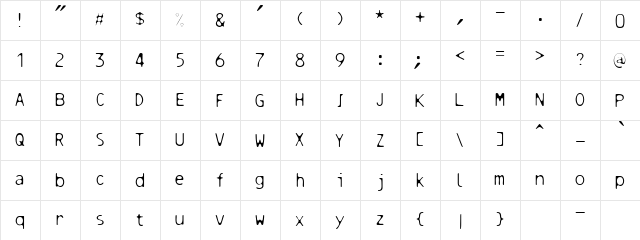
ResbalosoSlippingA Regular
Design Context for ResbalosoSlippingA Typeface
ResbalosoSlippingA is a composed and adaptable typeface that performs quietly and consistently across a wide range of design contexts.